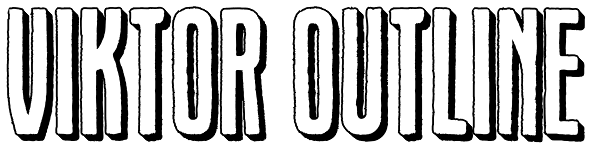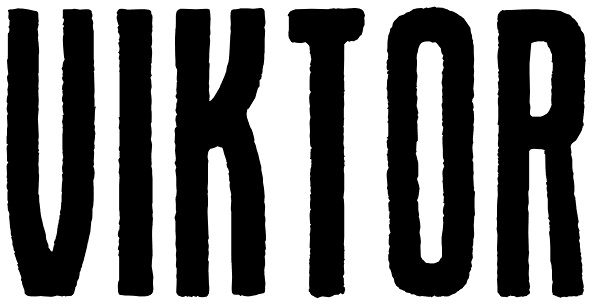
Viktor
The design for the font "Viktor" is based on original woodcut letters I purchased on a Flea Market. I handprinted the letters and converted the result into a font. The font preserves the rough and handmade character of the printed letters. To make...
Viktor Outline
Viktor Stripes
Viktor Shadow
Viktor